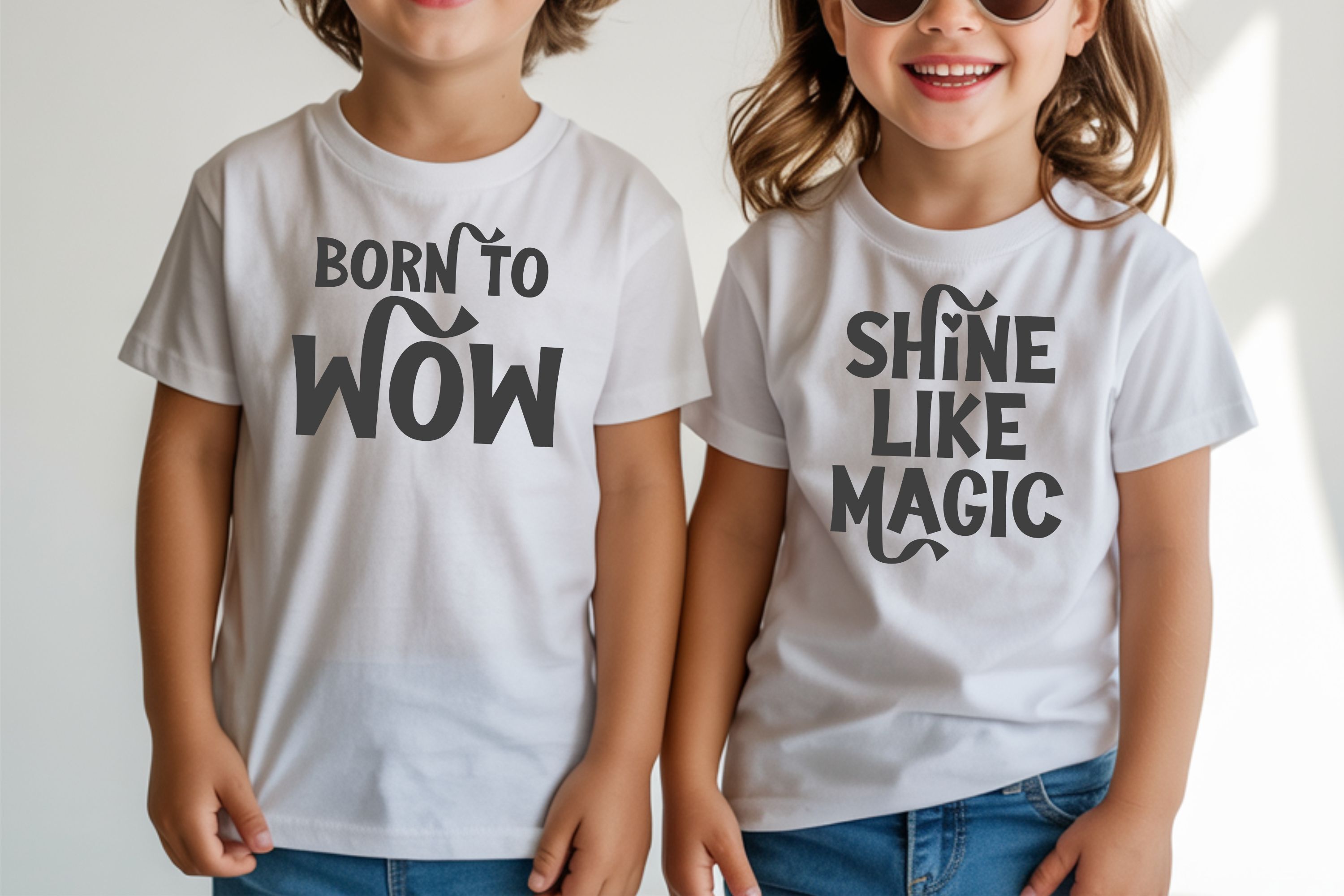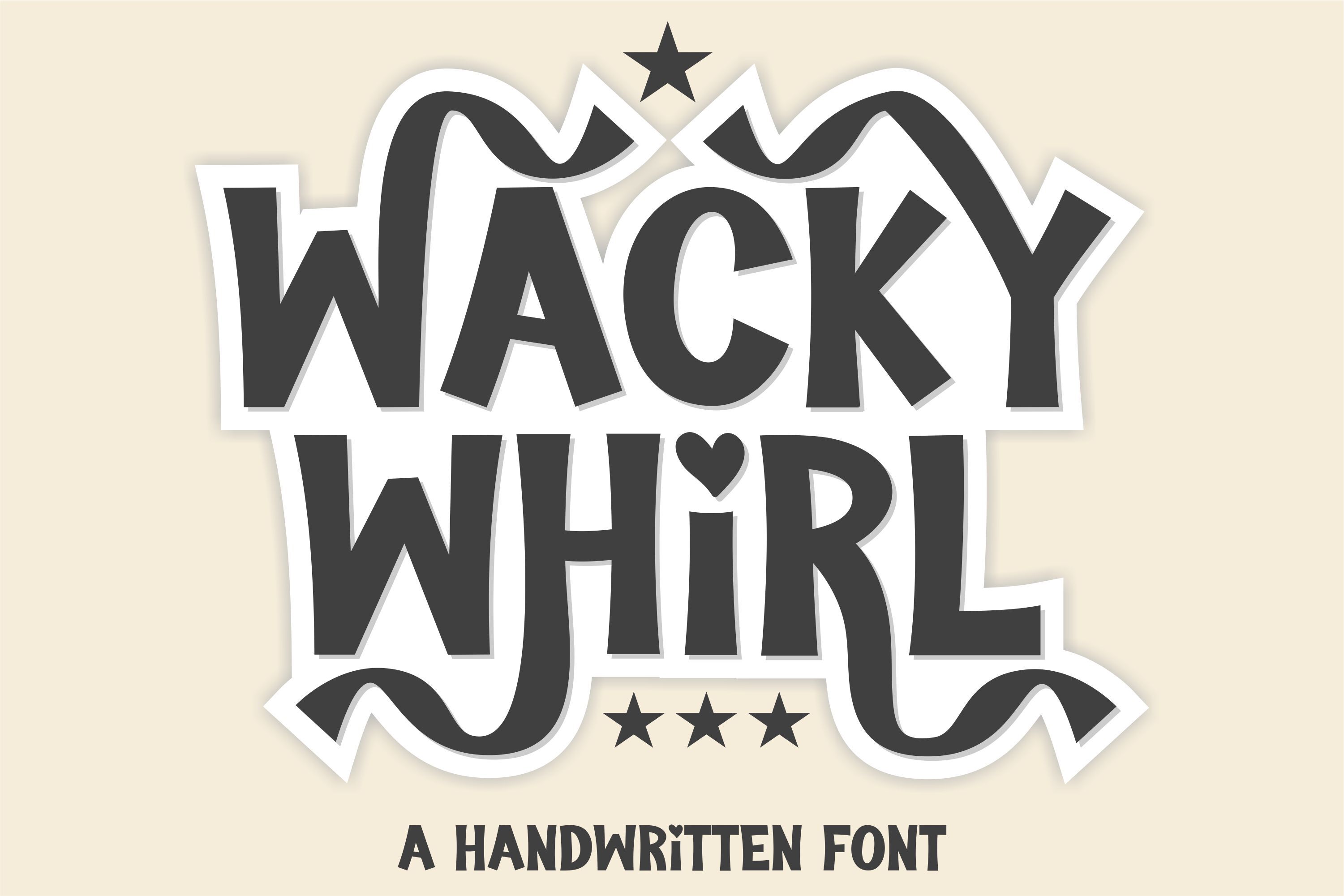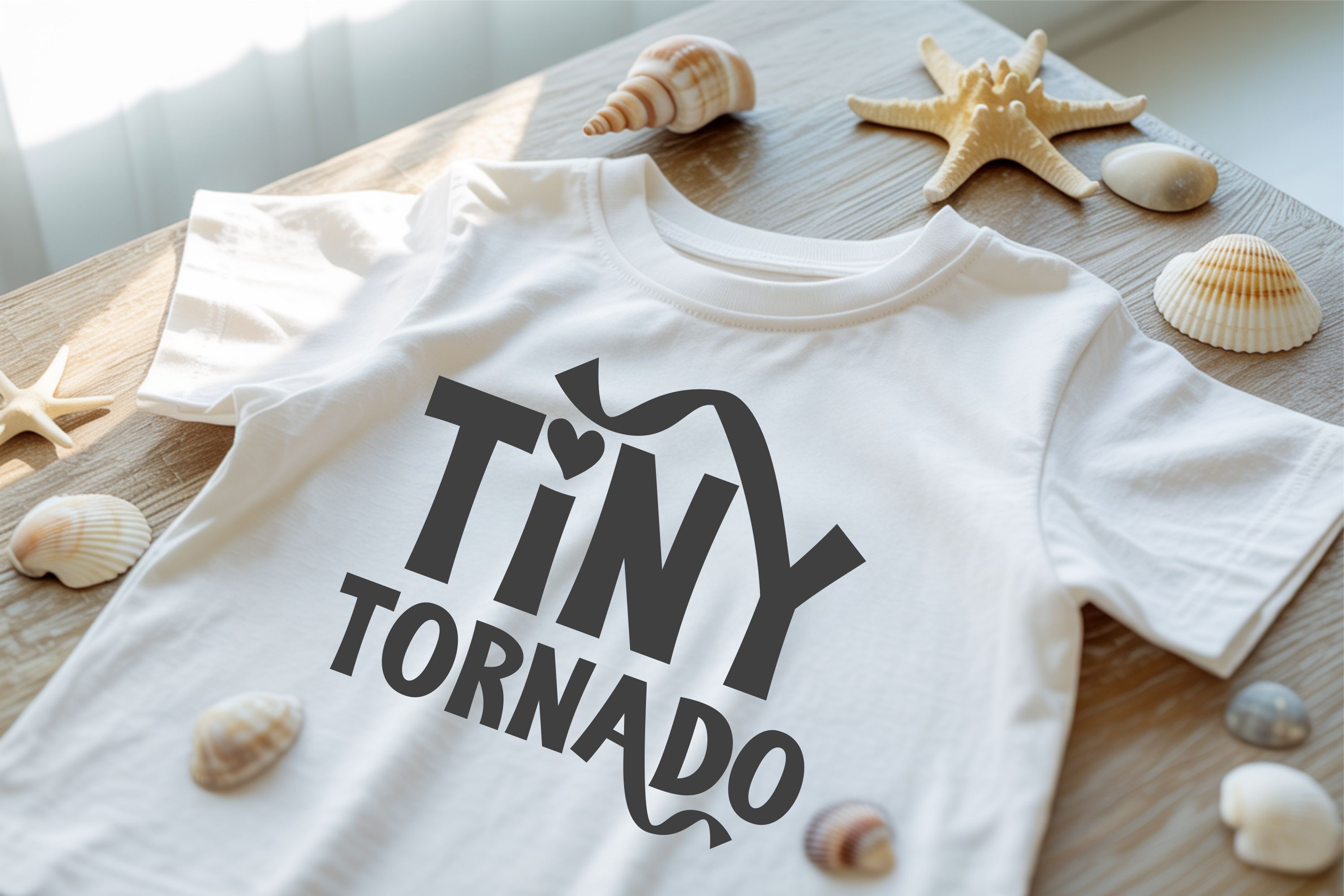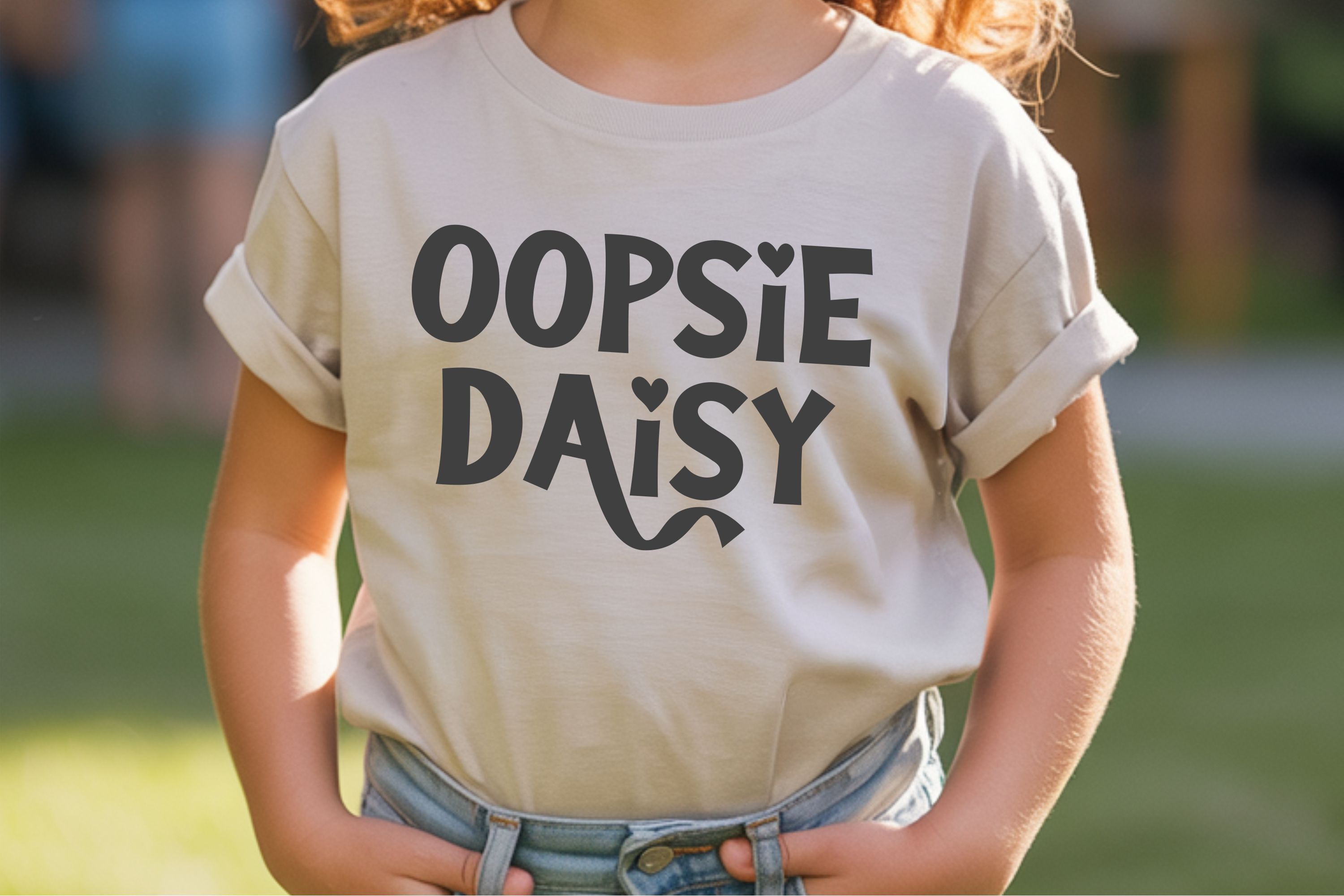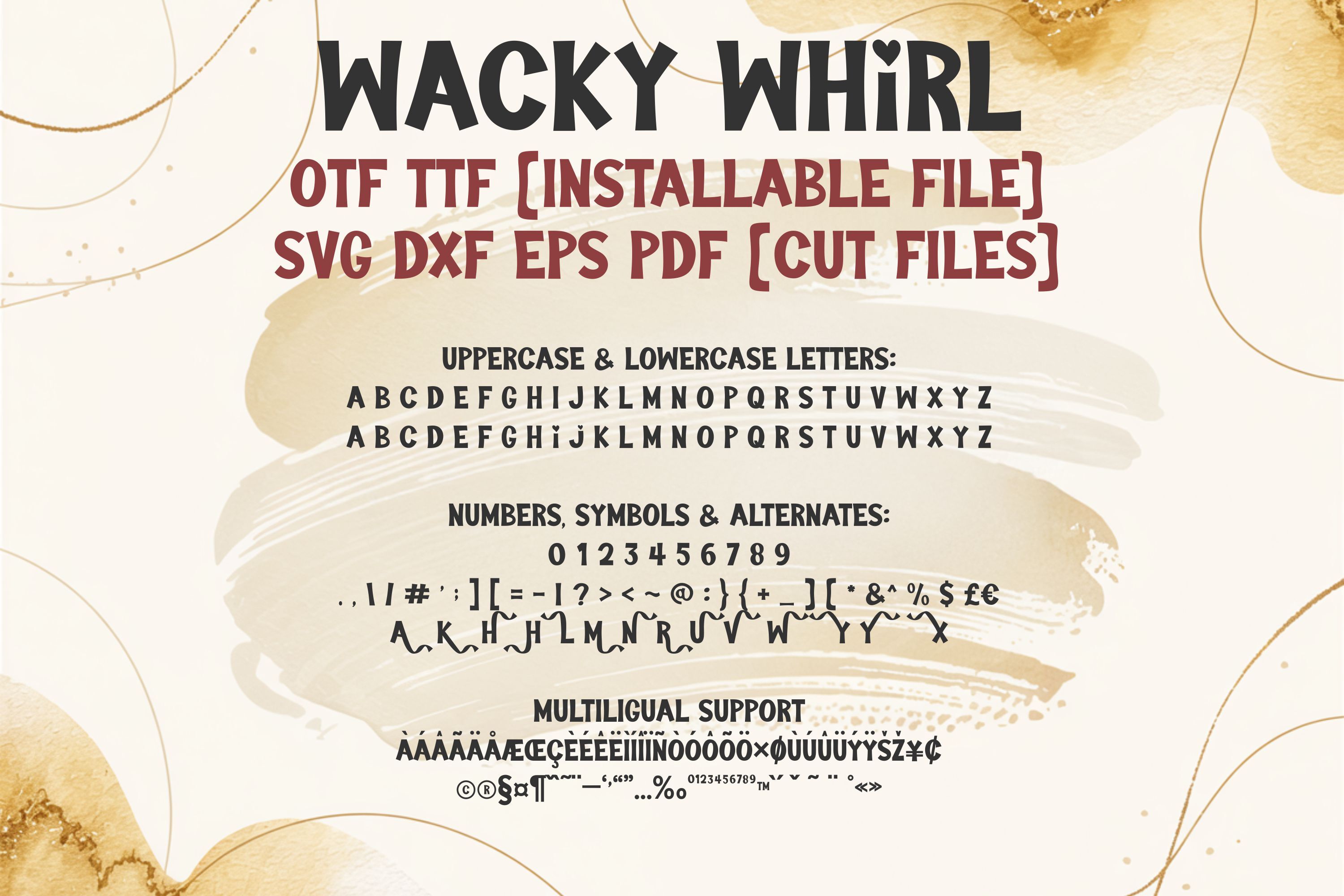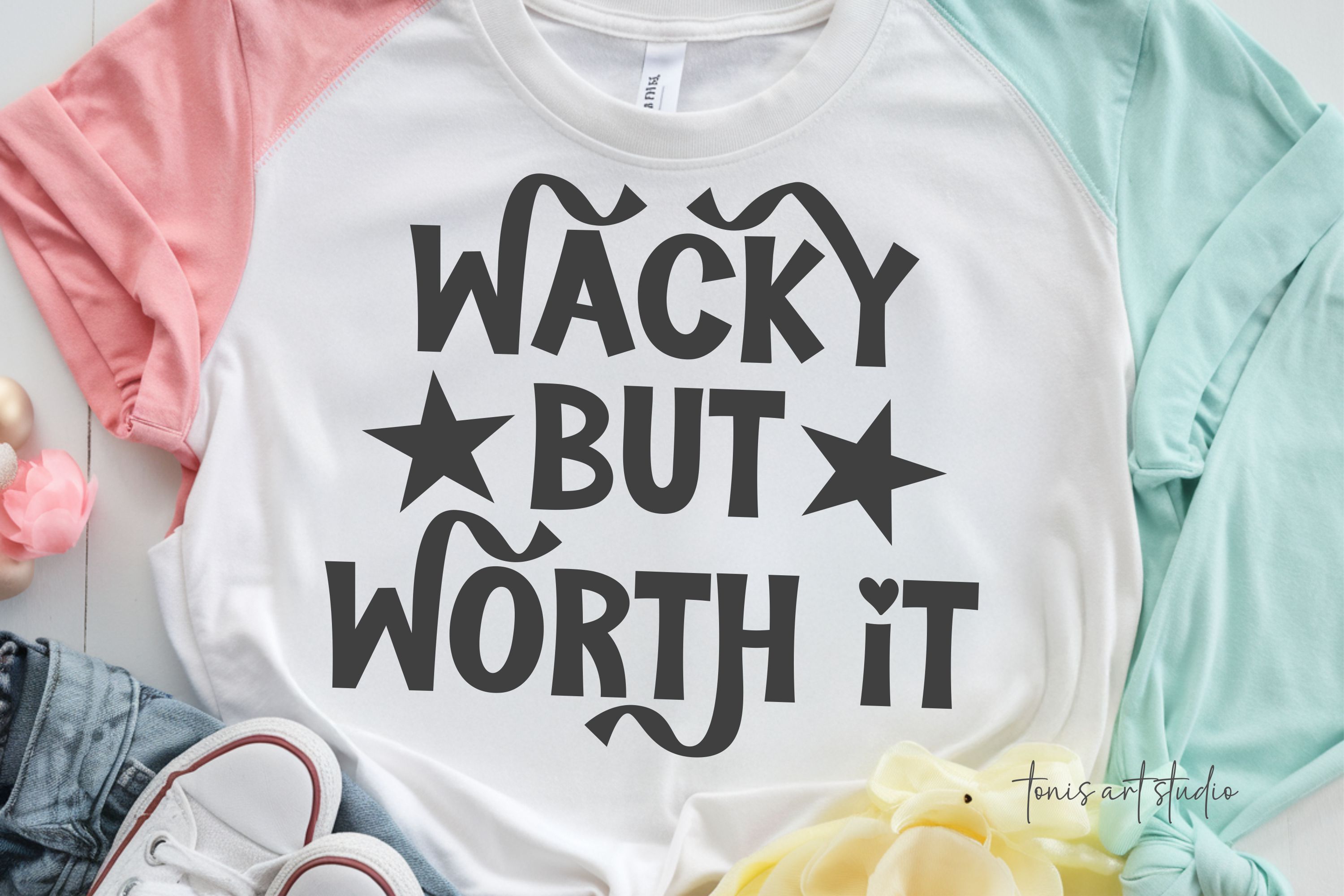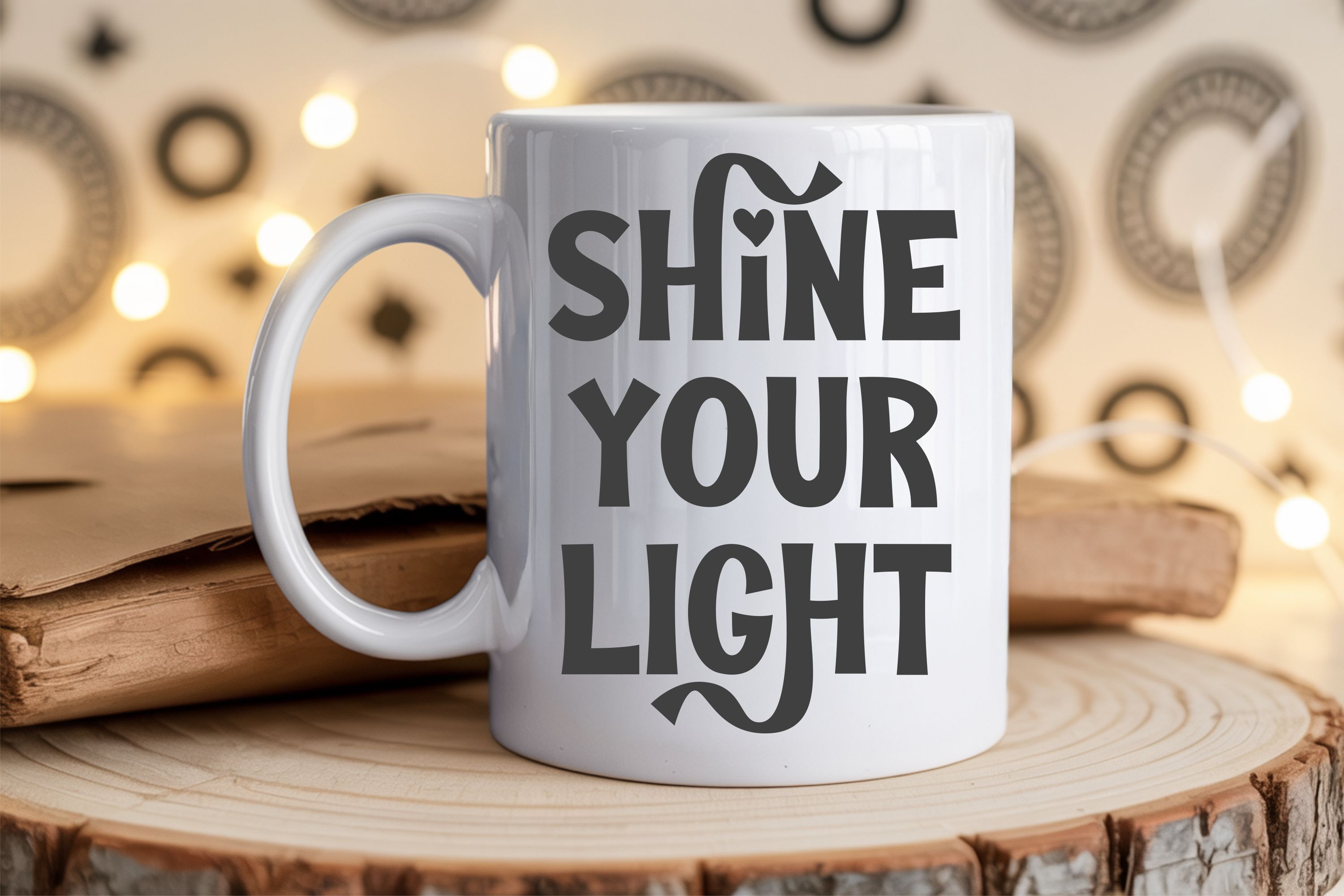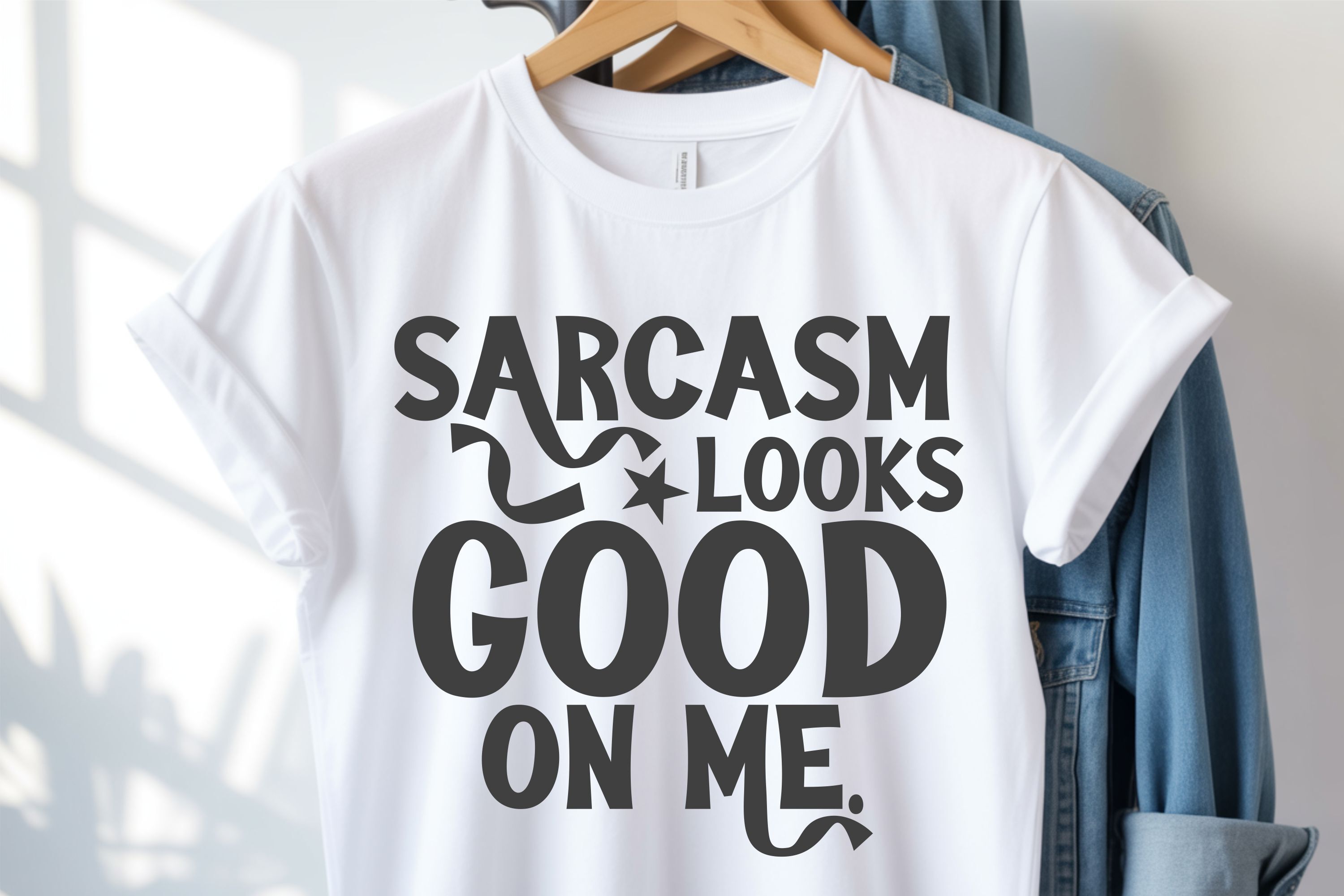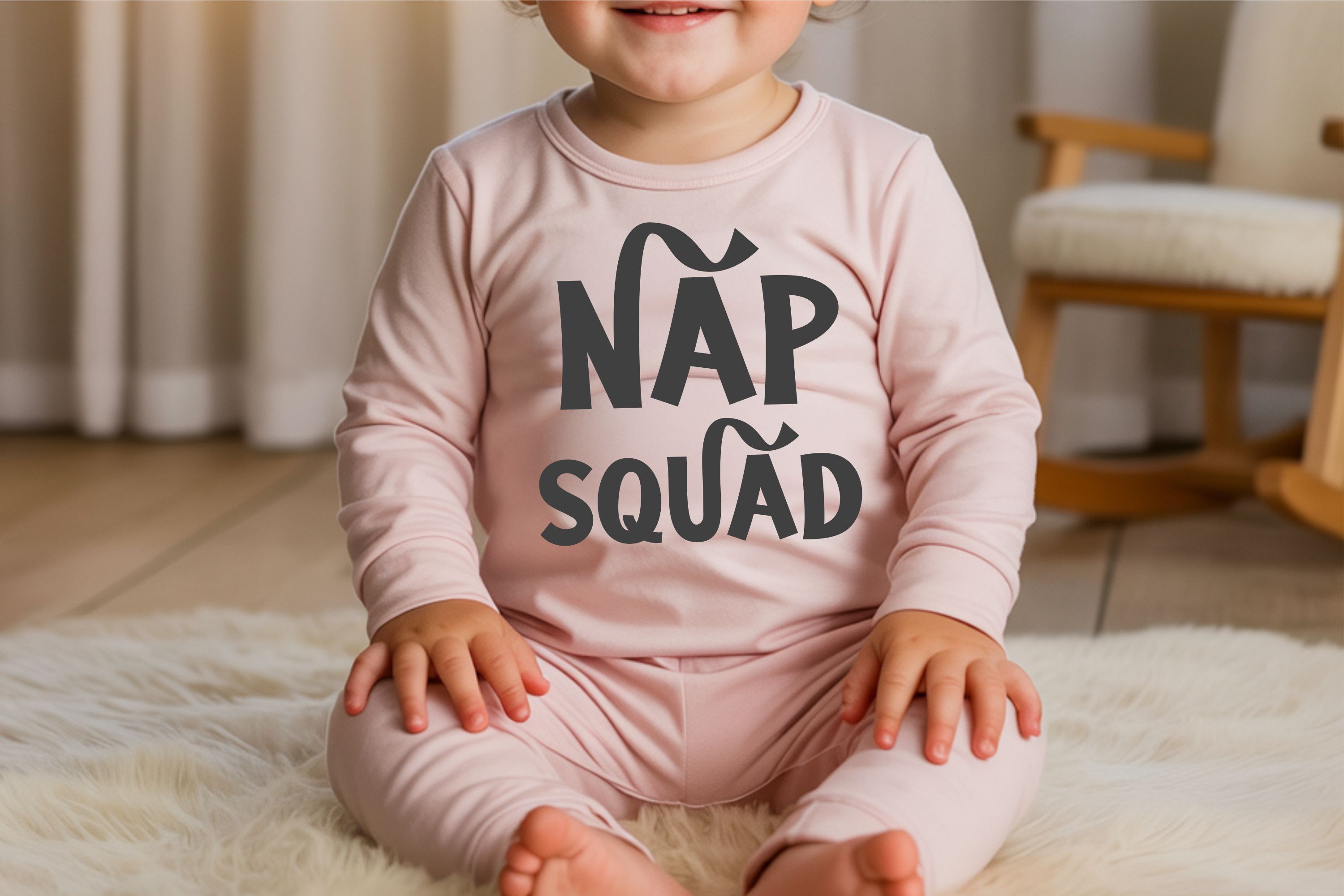
Wacky Whirl is a bold, fun handwritten font bursting with personality! Designed with playful swirls, heart accents, and a touch of quirk, this font brings joy to any creative project. Whether you’re crafting funny quotes, customizing t-shirts, designing planner pages, or creating party printables, Wacky Whirl adds a lighthearted and expressive flair to your work.
Perfect for kids' designs, teacher projects, nursery art, spring and summer crafts, and more — this font is easy to use and compatible with Cricut, Silhouette, Procreate, Canva, and all major design software. The characters are clean yet whimsical, making them ideal for both digital and print applications.
Wacky Whirl includes uppercase and lowercase letters, numbers, punctuation, symbols, and alternate swirly characters. It also supports multiple languages for global creativity! You’ll receive both installable font files and cut-friendly formats to suit every need.
Wacky Whirl
Wacky Whirl Fun Handwritten Font for Cricut & Crafting